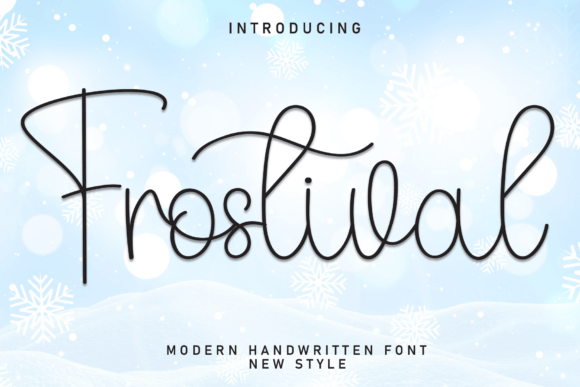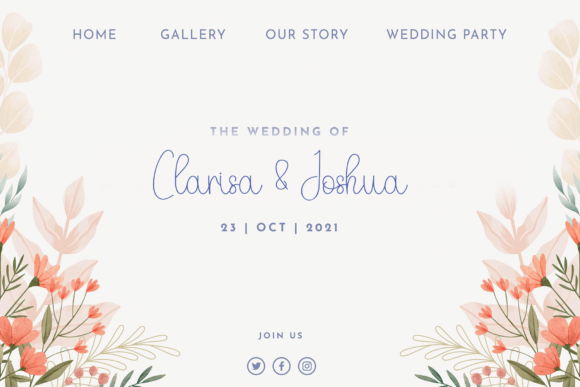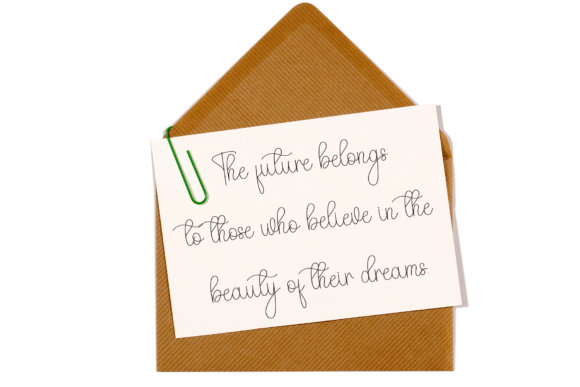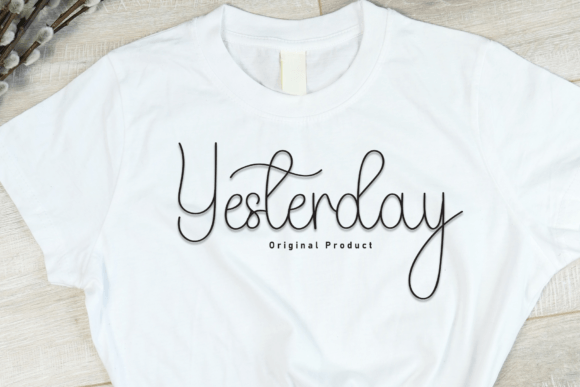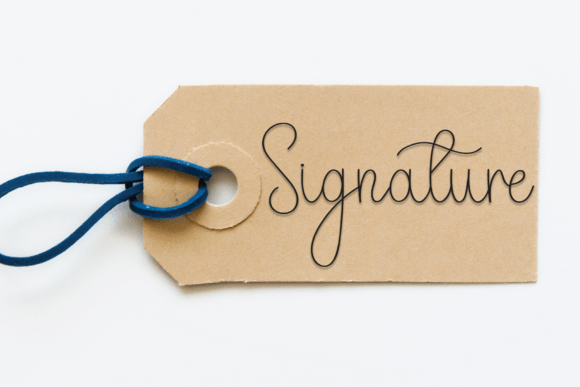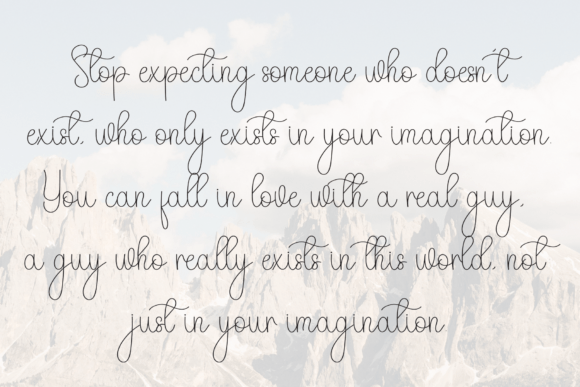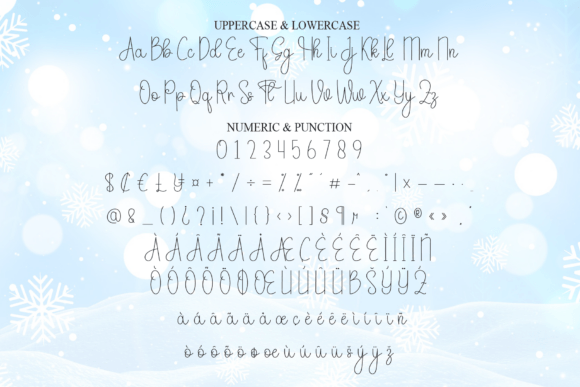
The Perfect Touch of Personality: Unveiling the Frostival Font
There’s something magical about scribbling down a message in a beautiful handwriting font, isn’t there? The way the ink flows onto the page, the subtle imperfections that make it uniquely yours – it’s a tactile experience that never gets old. Whether you’re signing a love letter or creating a bespoke wedding invitation, the right font can elevate your design from ordinary to extraordinary.
Enter the Frostival Font, a stylish and flowing script font that captures the essence of elegant handwriting. Perfect for adding a touch of personality and charm to your designs, this versatile font is a must-have for any creative looking to make a lasting impression. Whether you’re a seasoned designer or a DIY enthusiast, the Frostival Font is a valuable addition to your toolkit, offering endless possibilities for personal and creative projects.
Frostival Font Key Features
- Font Family: Frostival Font is a unique, hand-drawn typeface designed for cold-weather and winter-themed applications.
- Character Count: The font family includes a total of 240 glyphs, ensuring comprehensive coverage for most languages.
- Unique Characteristics: Frostival Font features intricate, hand-crafted details and subtle texture effects, giving it a distinctive, winter-inspired aesthetic.
Frostival Font Review
I recently had the chance to work with the Frostival Font, and I have to say it’s been a mixed bag. Here’s my honest take on it.
- Unique and Festive Aesthetic: The Frostival Font has a distinct winter wonderland vibe that’s perfect for holiday-themed projects or promotional materials.
- Good Legibility: The font is clear and easy to read, even at smaller font sizes.
- Customization Options: The font offers a range of customization options, including font sizes, colors, and even animations.
- Limited Compatibility: I’ve encountered some compatibility issues with certain software and operating systems, which can be frustrating.
- Not Suitable for Body Text: While the font is great for headlines and titles, it’s not ideal for body text due to its unconventional design.
- Limited Character Set: The font’s character set is limited, which can make it difficult to use for projects that require a wide range of characters.
Overall, I think the Frostival Font is a solid choice for specific projects, but it may not be the best fit for every design need. With some careful planning and customization, it can be a great addition to your design arsenal.
Tips for Getting the Most Out of Frostival Font
To get the most out of Frostival Font, use it in conjunction with bold and italic text styles to create visually appealing headings and emphasis. Experiment with different font sizes and colors to add depth and dimension to your designs.
Frostival Font is ideal for use in winter-themed designs, such as holiday cards, invitations, and social media graphics. It’s also suitable for use in modern and minimalist designs where a clean, sans-serif font is desired.